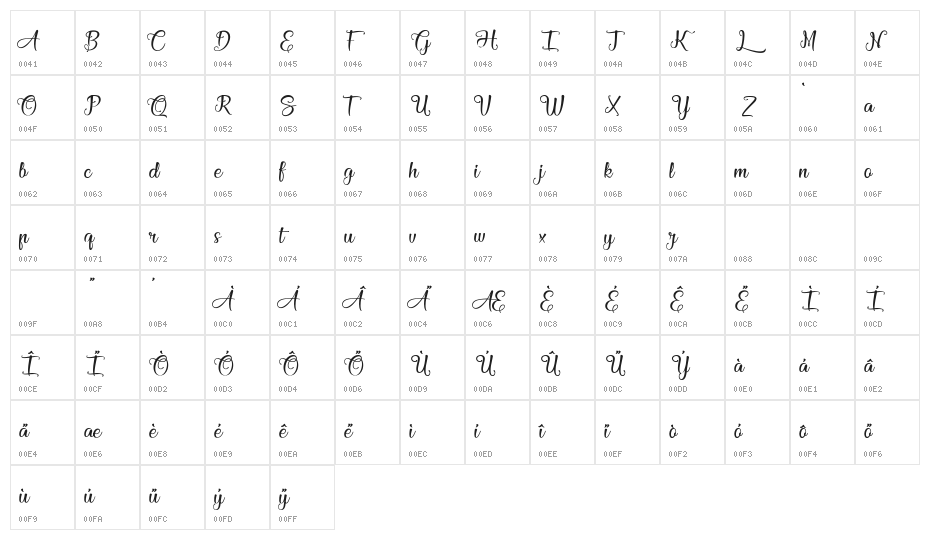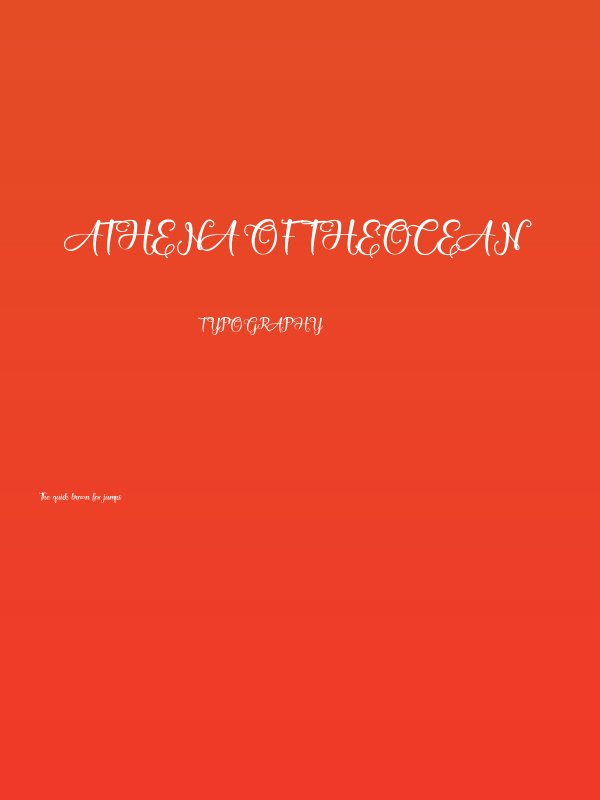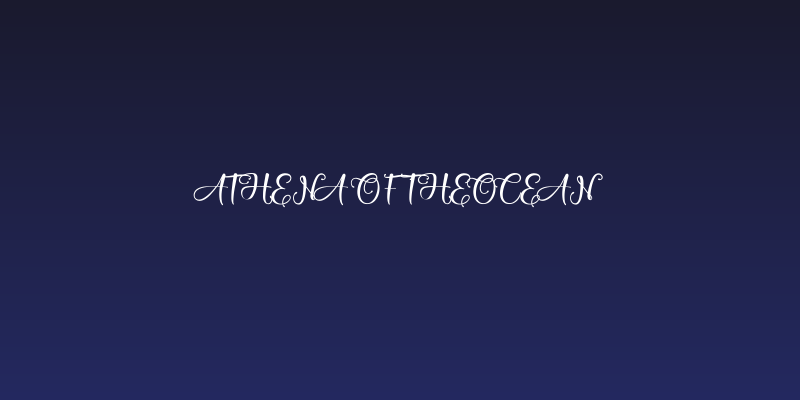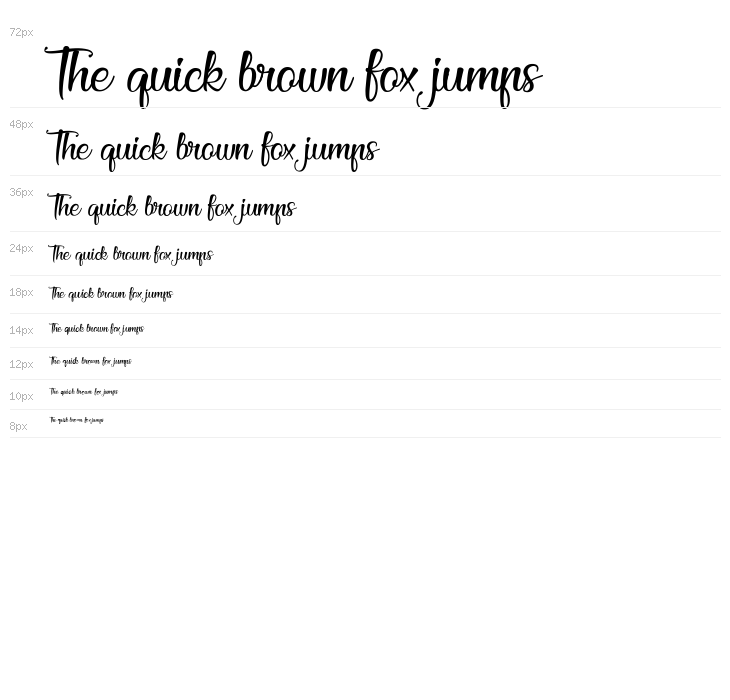
Athena of theOcean Font
Athena of theOcean Description
This font exudes elegance and sophistication with its flowing, cursive style. Each letter is adorned with delicate swirls and flourishes, creating a sense of movement and grace. The uppercase letters are particularly ornate, featuring extended strokes and loops that add a touch of drama. The lowercase letters maintain the same fluidity, with a slightly more restrained design that ensures readability. This font is perfect for projects that require a touch of class and refinement, such as wedding invitations, luxury branding, or high-end product packaging. Its intricate design makes it ideal for decorative purposes, where the font itself becomes a focal point.